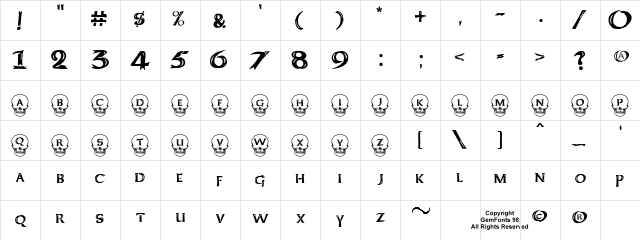
Deathhead KeltCaps Regular
Design Context for Deathhead KeltCaps Typeface
Deathhead KeltCaps carries an unsettling edge — its distorted letterforms are built to unsettle, perfectly suited to horror, Halloween, and dark creative work.
Ideal for Halloween projects, horror film titles, haunted house signage, and dark editorial design.
Font Pairing: Pair with a clean neutral sans-serif for body copy to let Deathhead KeltCaps's character lead without overwhelming the composition.
Pro Tip: Deathhead KeltCaps works best as a headline or focal element. Pair it against plain, neutral body text to amplify the contrast.